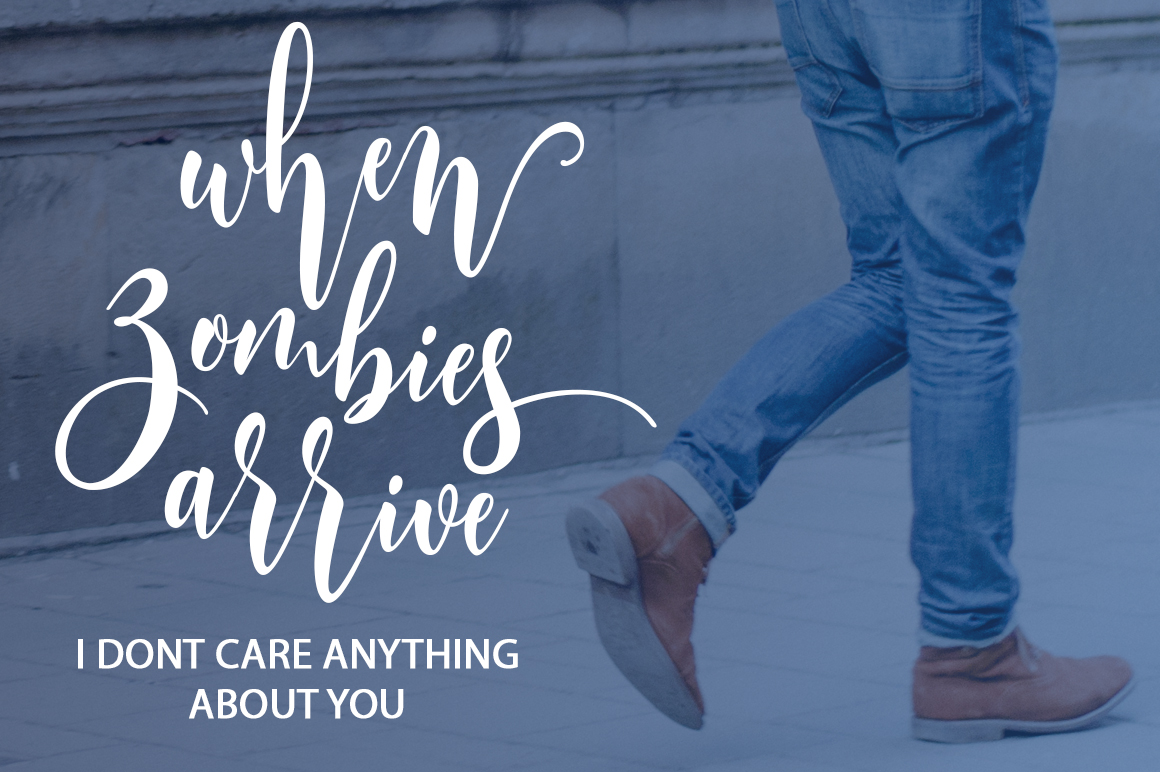
About Charletto Font
Charletto, a new, fresh & modern script that features a handmade calligraphy style. Being attractive and sweet, Charletto is perfect for creating stunning invitations, greeting cards, branding & more.